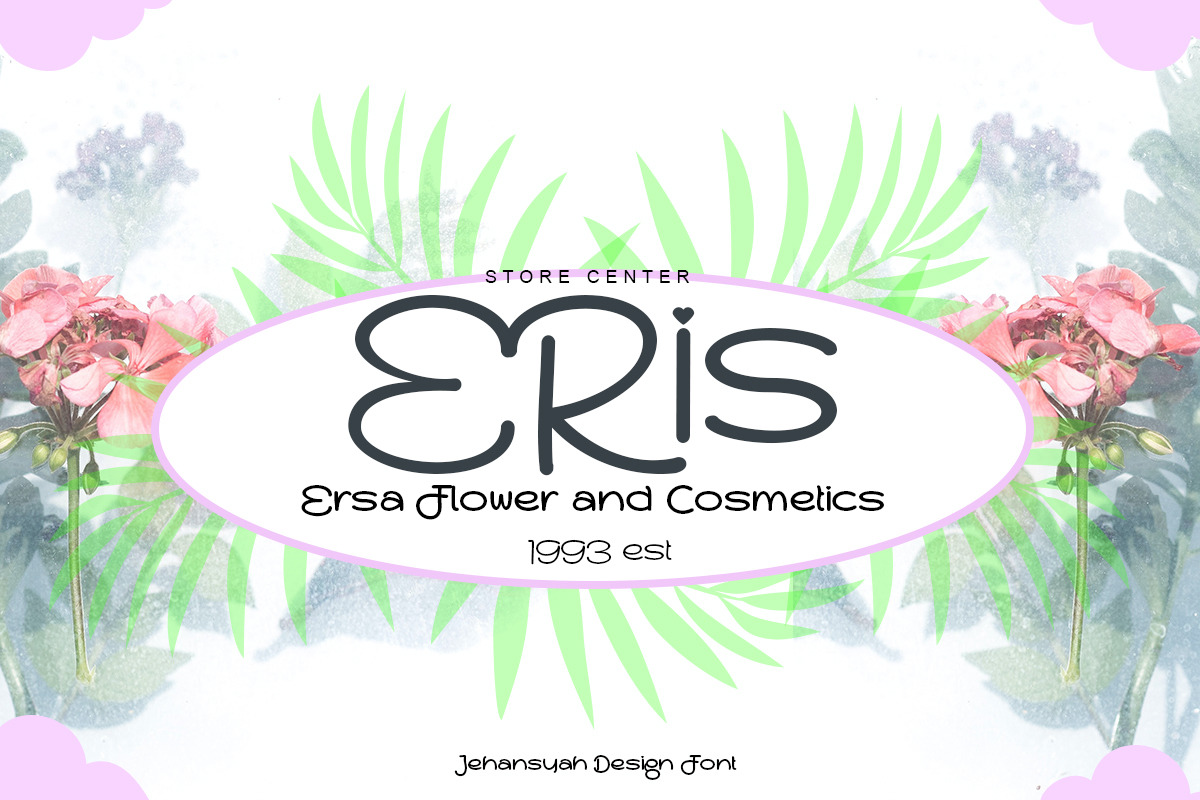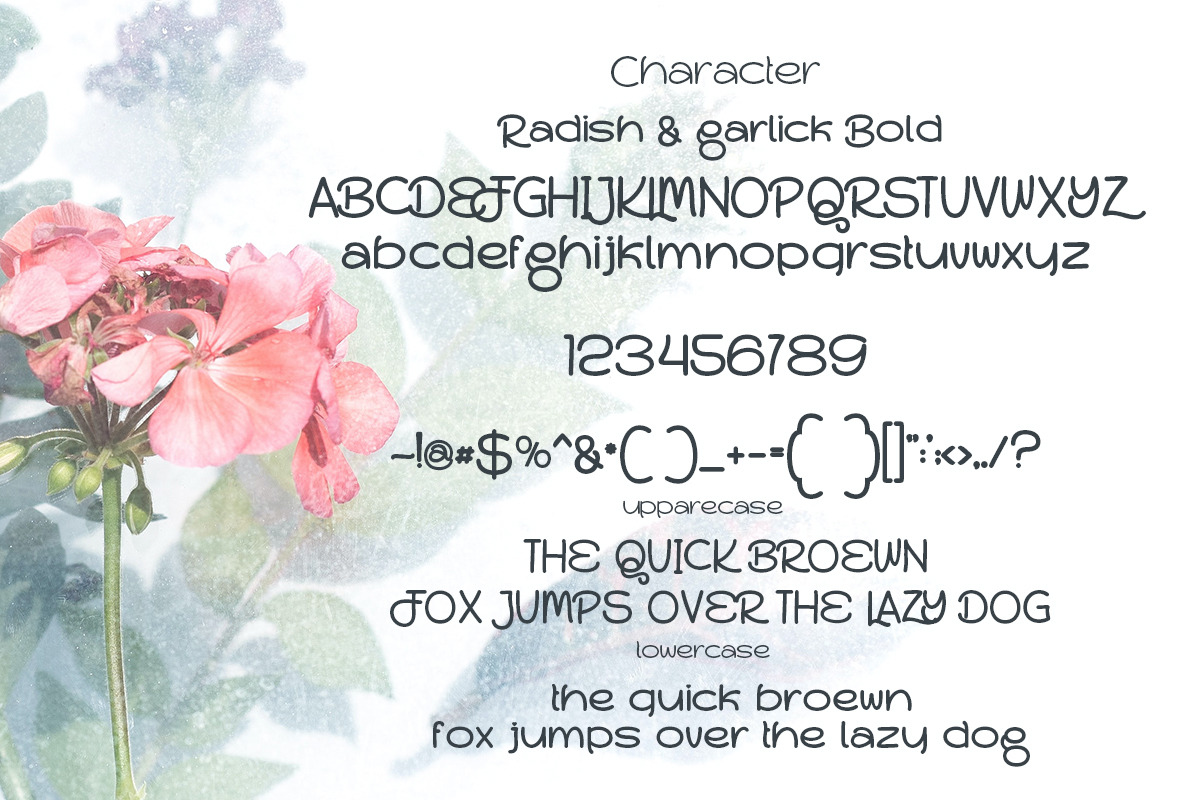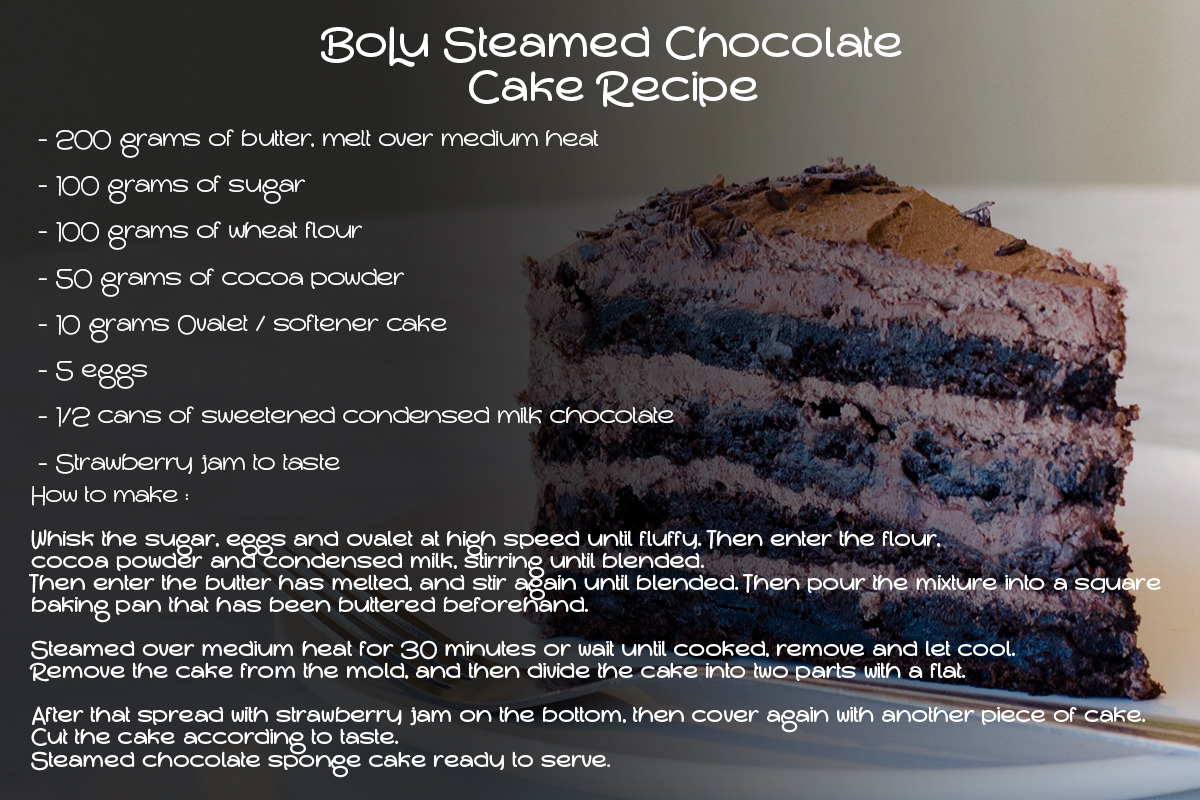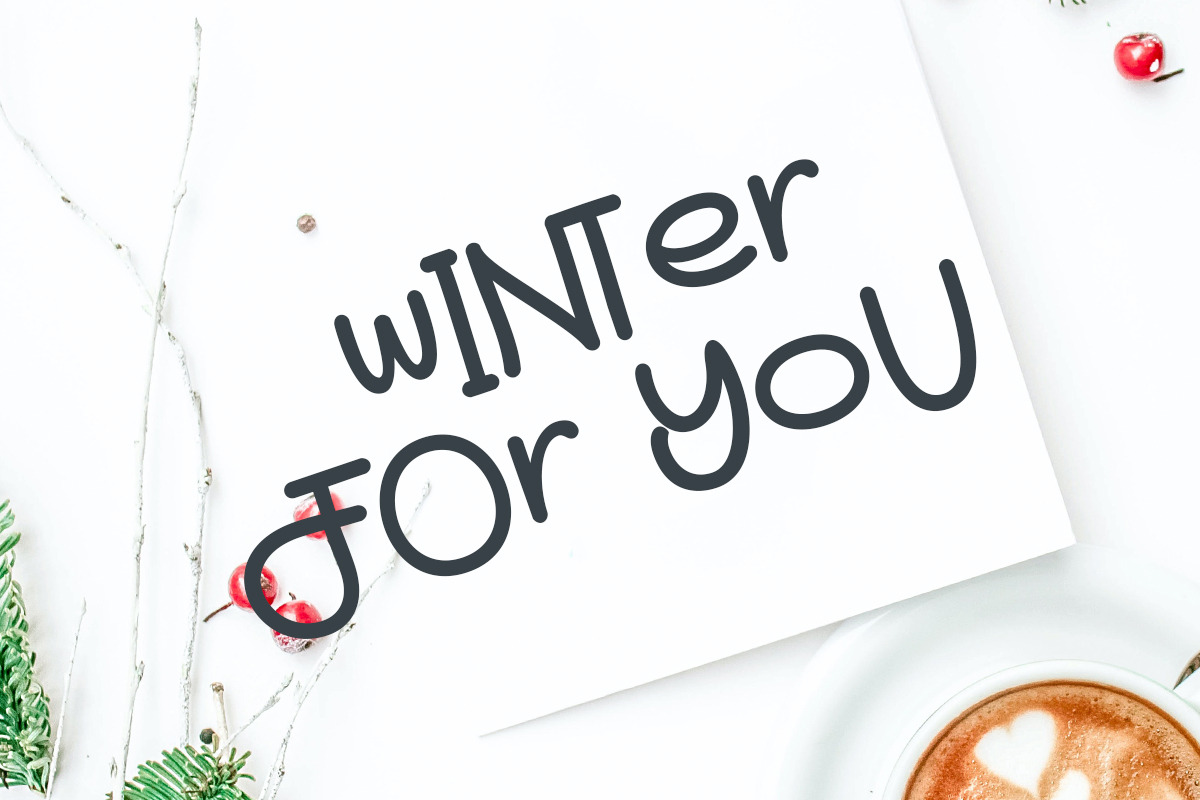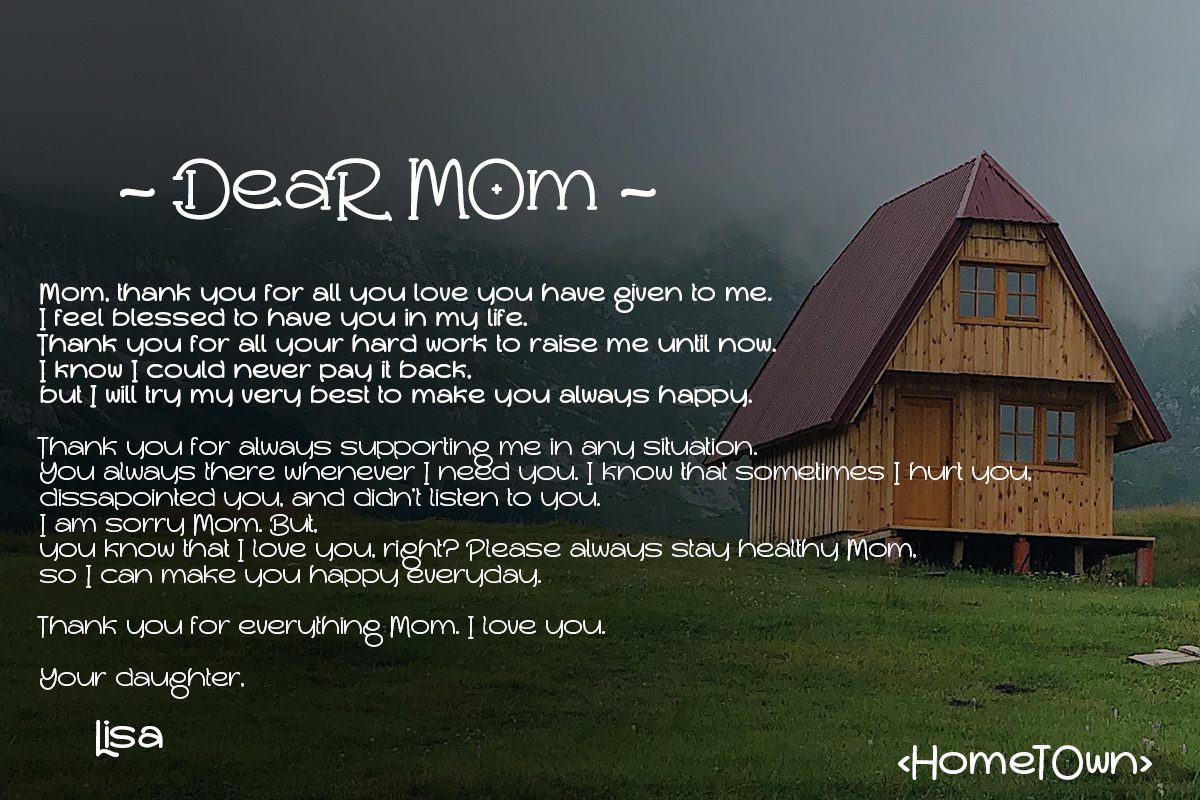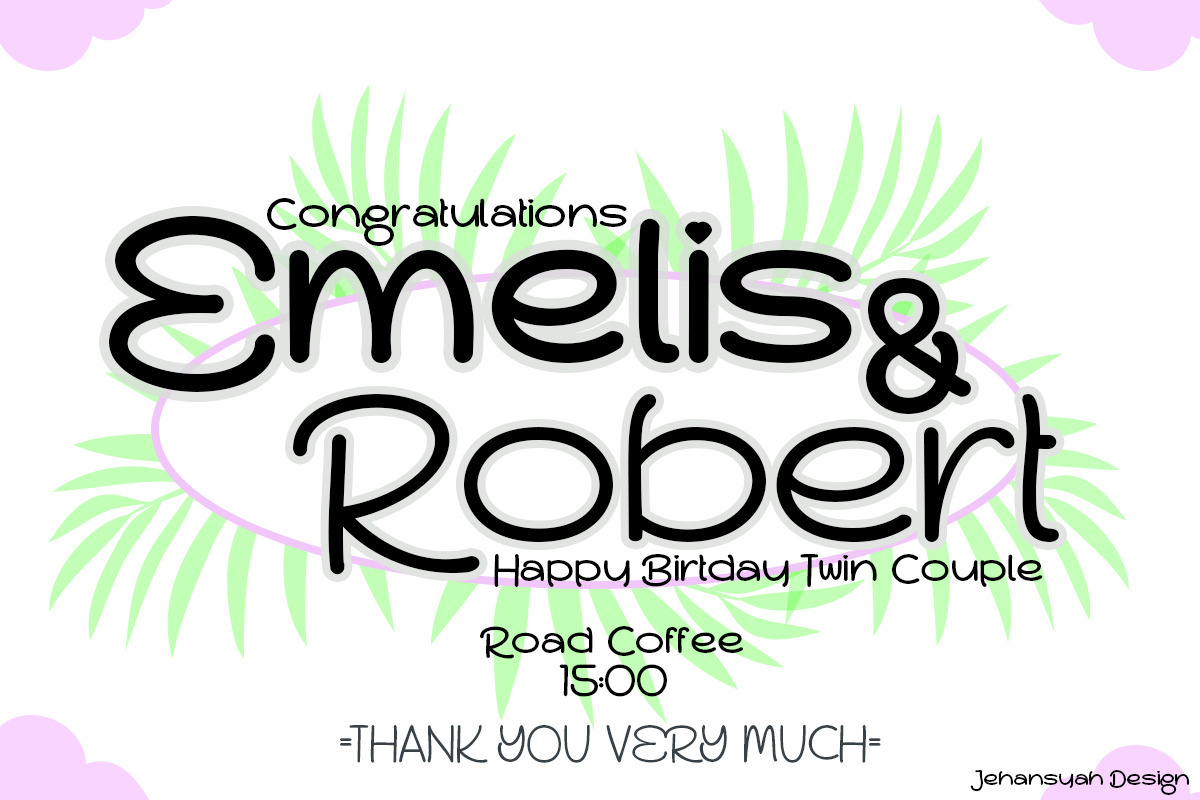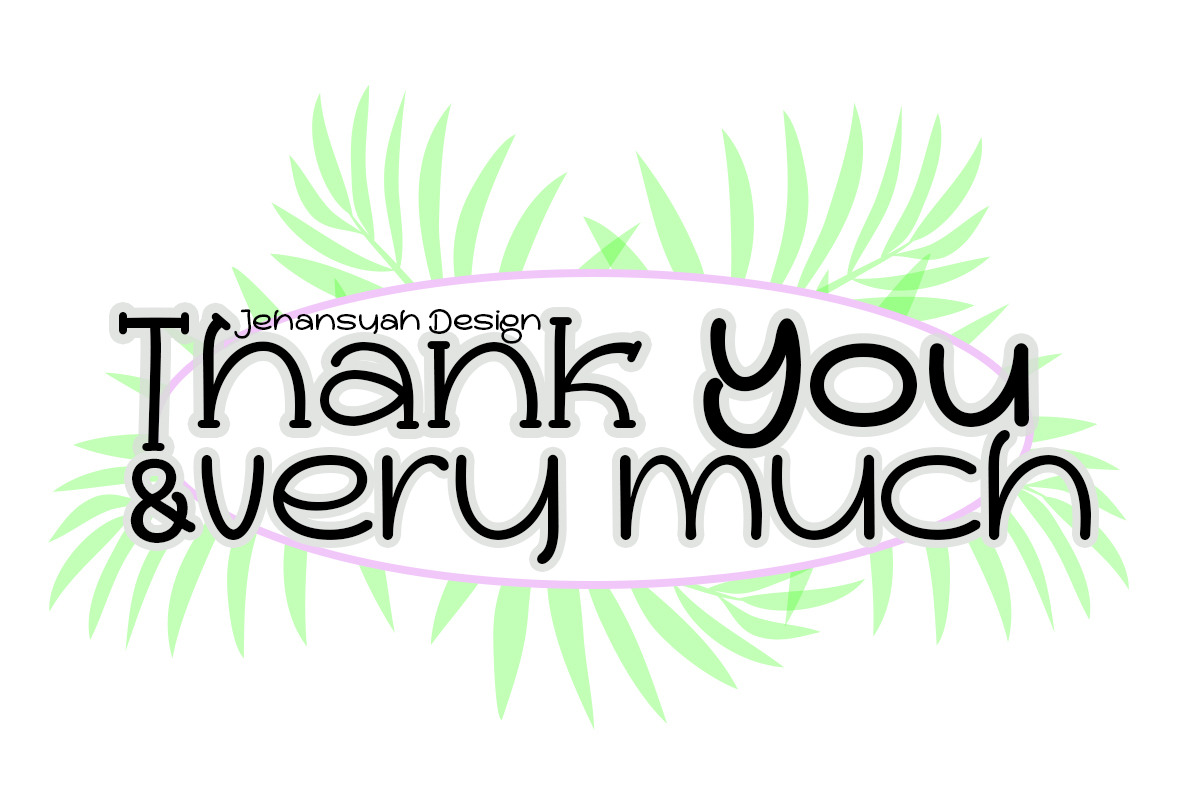
Radish and Garlick
Radish and garlick This handcrafted font, so cute and so cute for any design you want to look simple yet aesthetically pleasing, use this design for all your design needs, it will potentially be your best font choice use it for all your design needs, print media, brochures, social media, social media status, letters, invitations, and much more